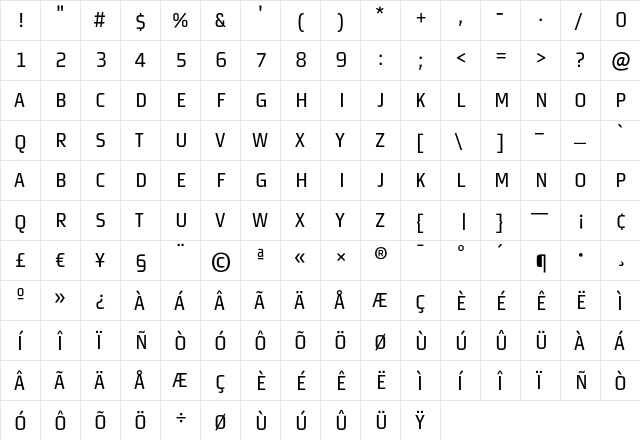
MorganSansCond RegularCaps
Design Context for MorganSansCond Typeface
MorganSansCond is a composed and adaptable typeface that performs quietly and consistently across a wide range of design contexts. The condensed width makes it efficient for tight spaces without sacrificing legibility.
Pro Tip: Pair MorganSansCond with a font of contrasting weight or personality to build a more expressive typographic hierarchy.